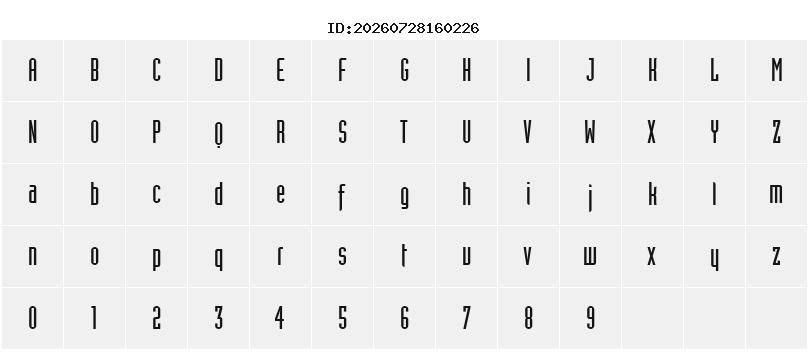
About Industria LT Solid.ttf
Industria LT Solid.ttf is a modern, elegant sans-serif font designed for ultimate readability and visual harmony. Perfect for branding, headlines, web design, and print materials.